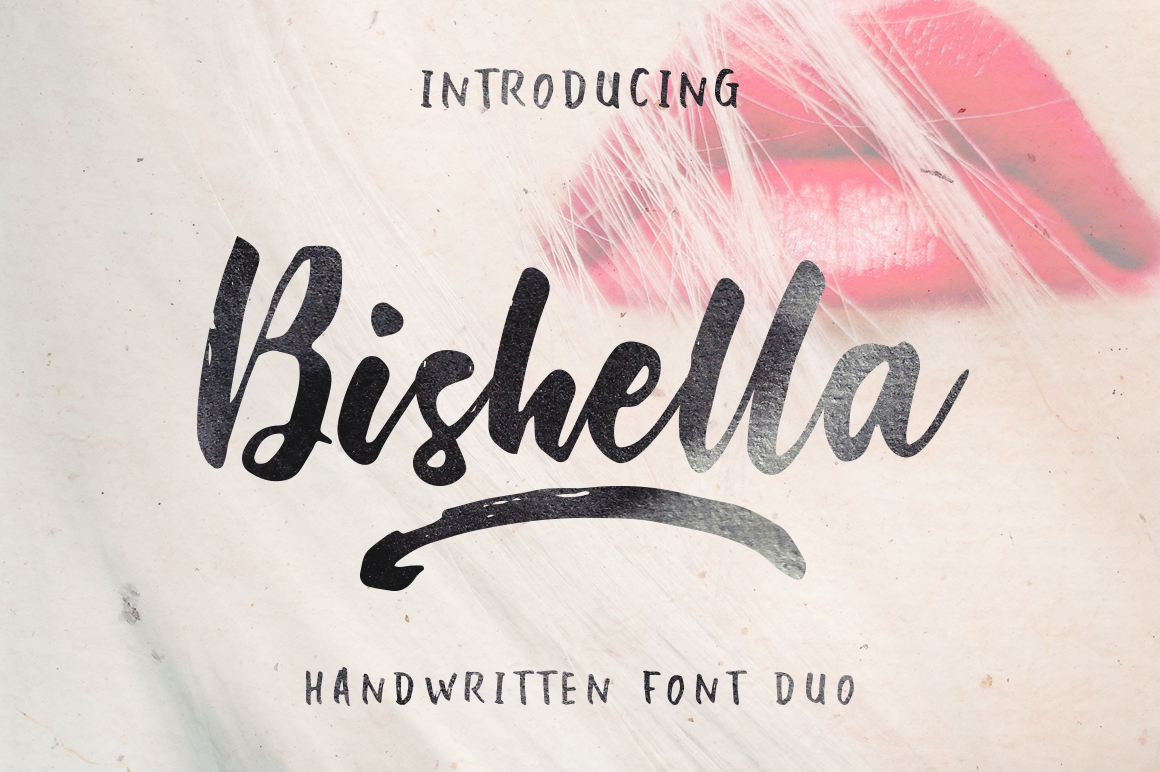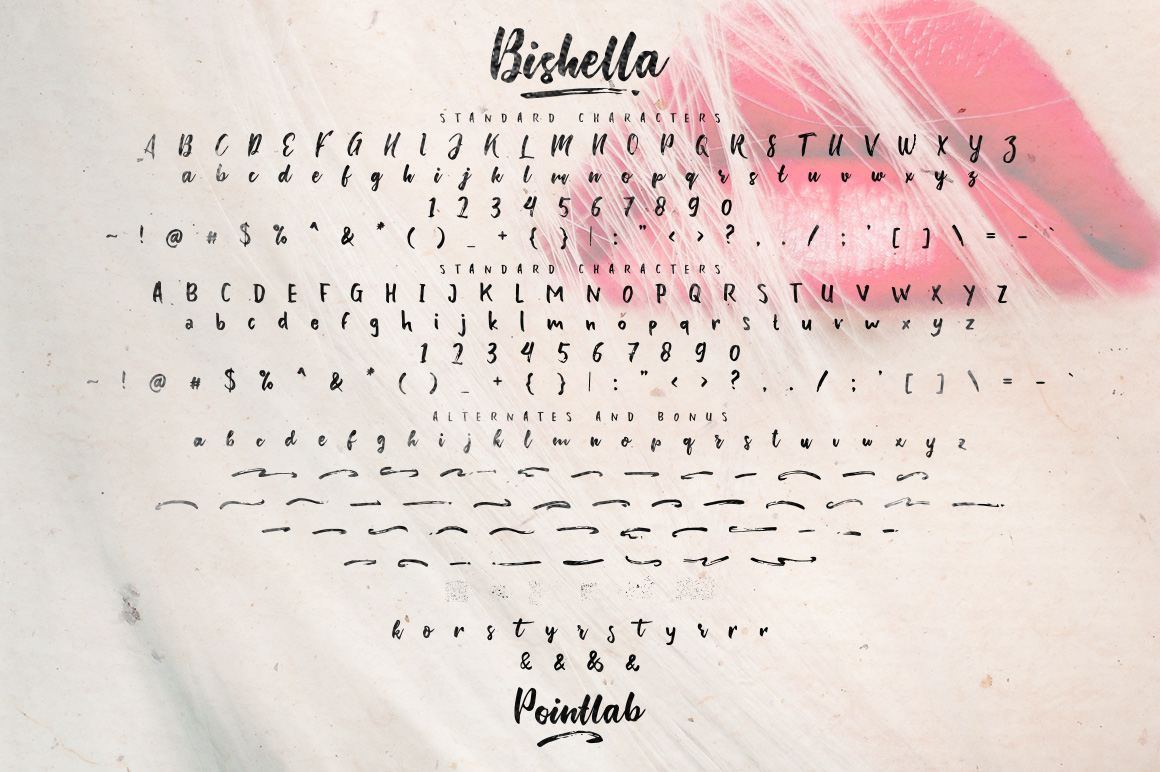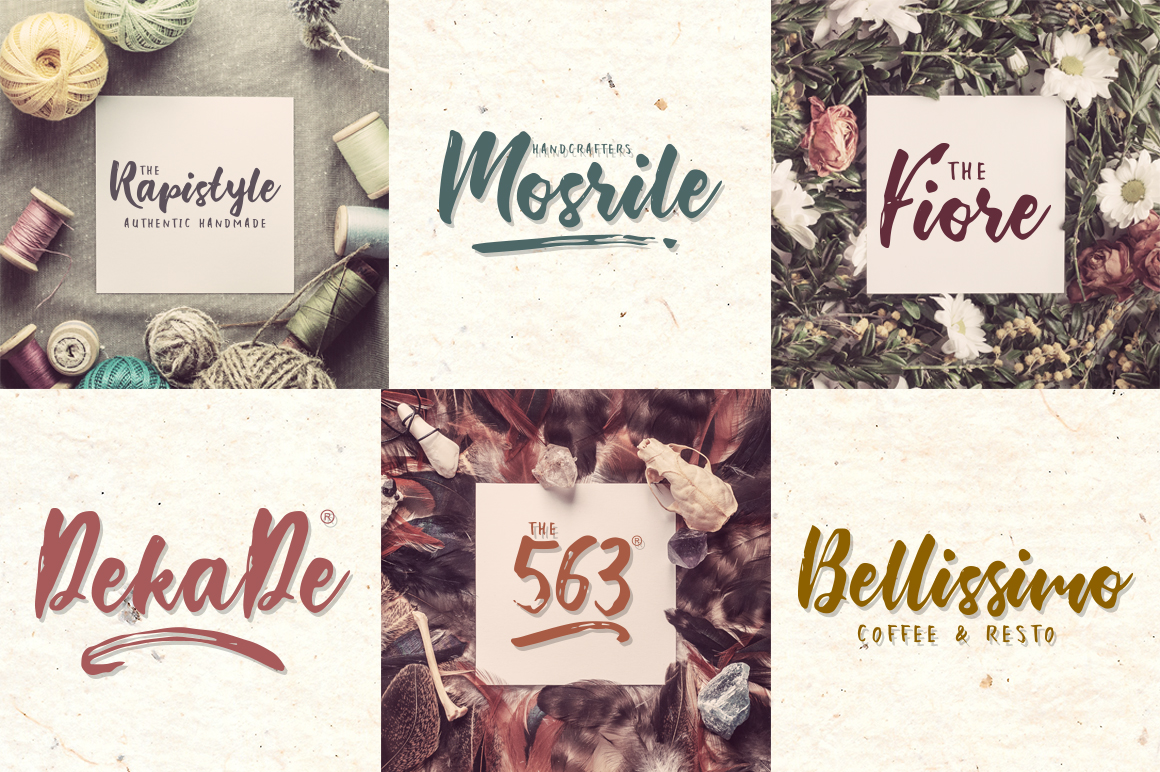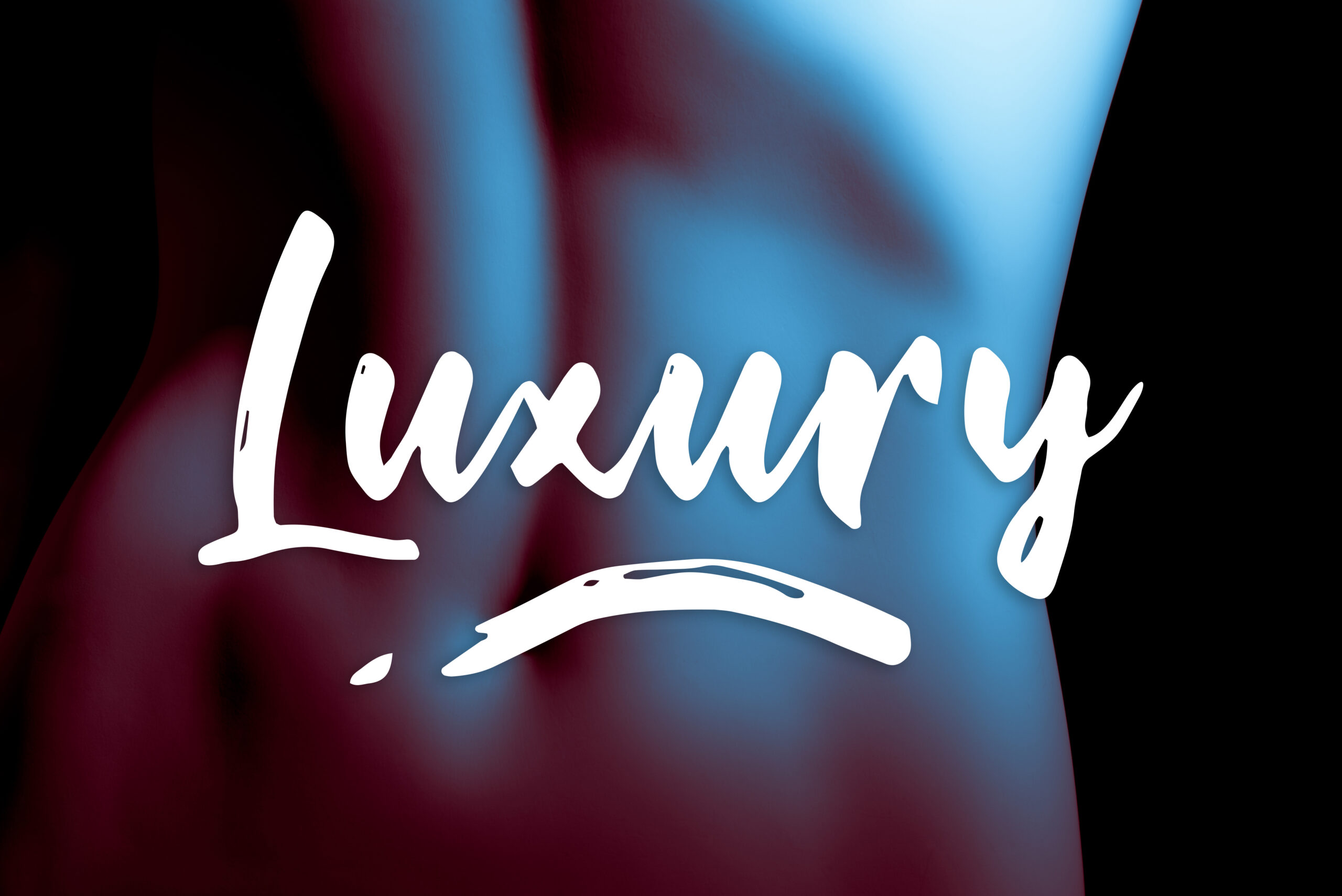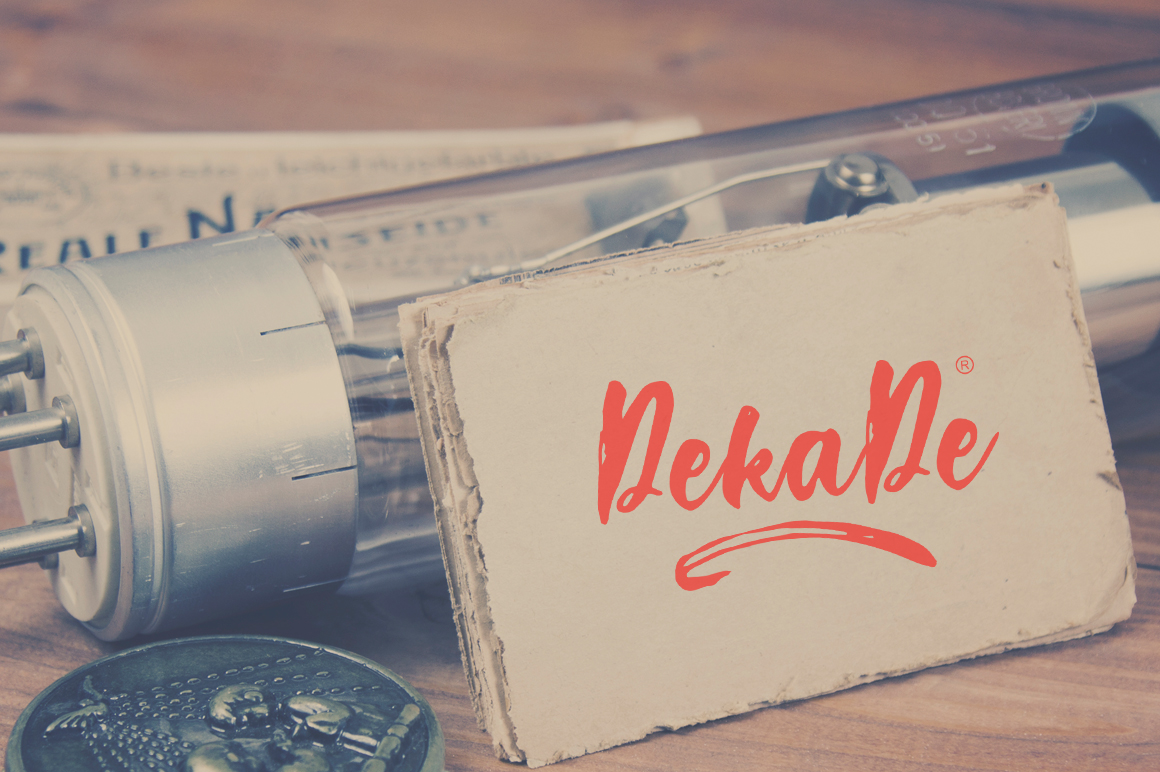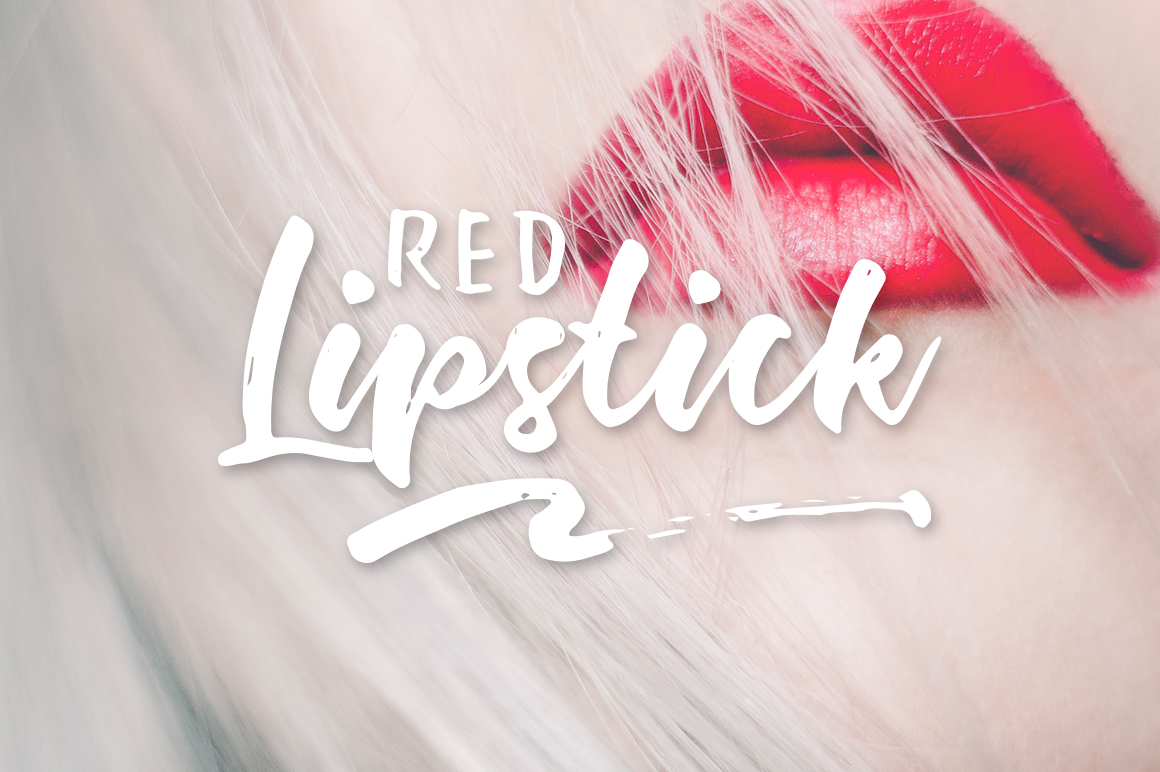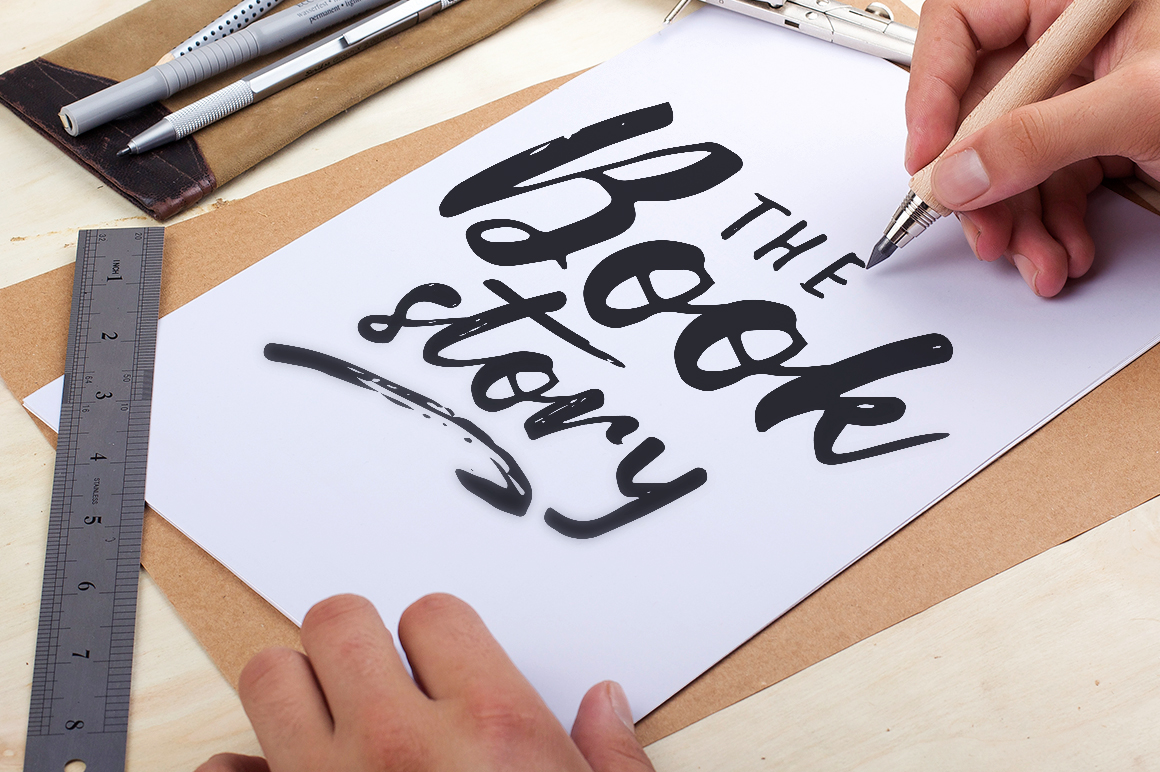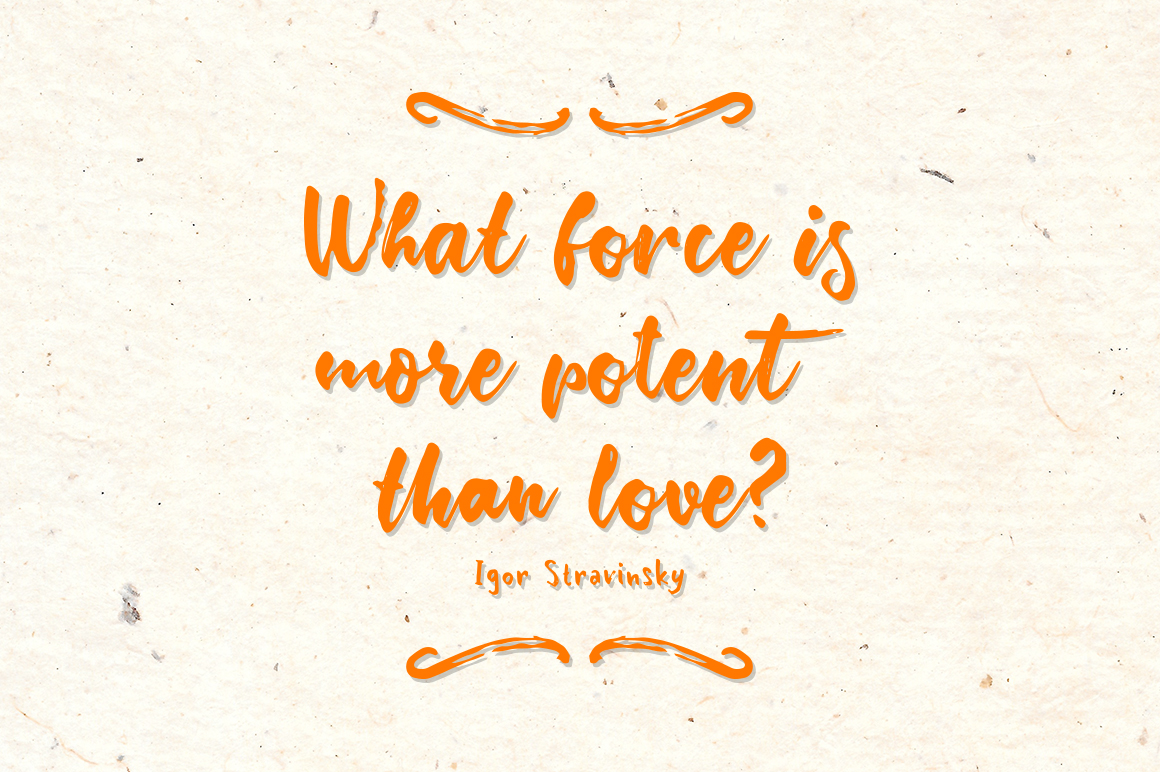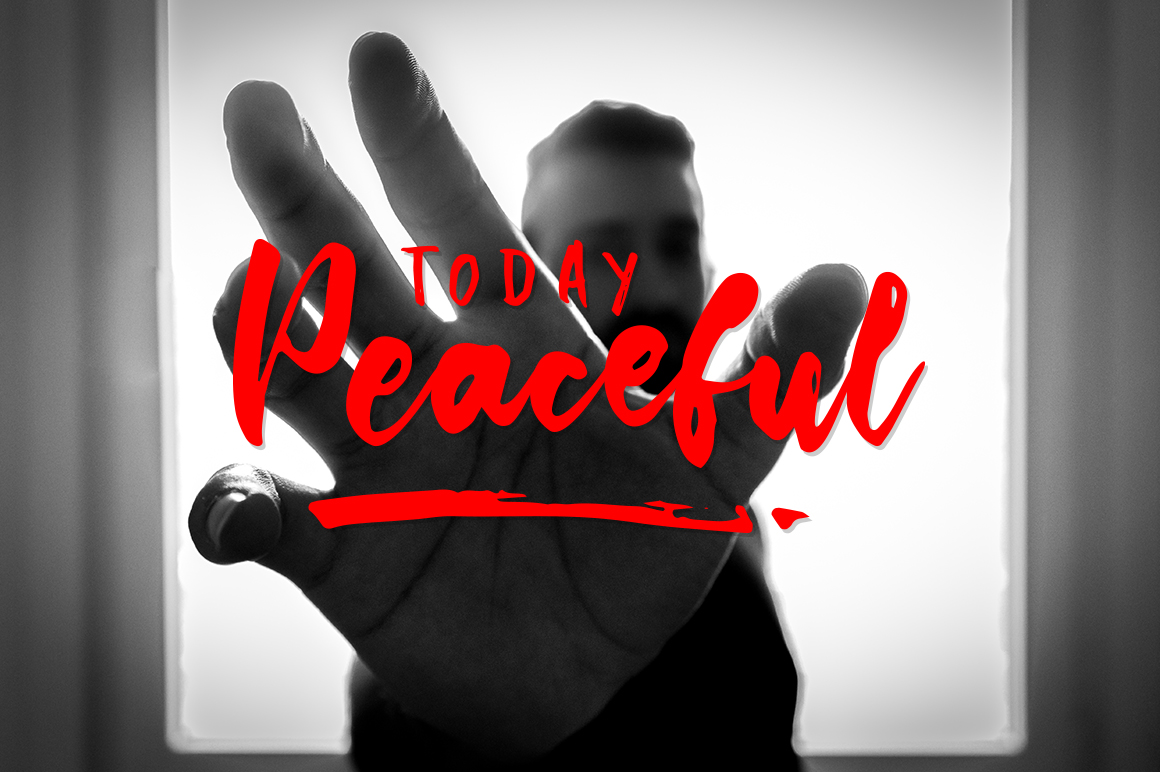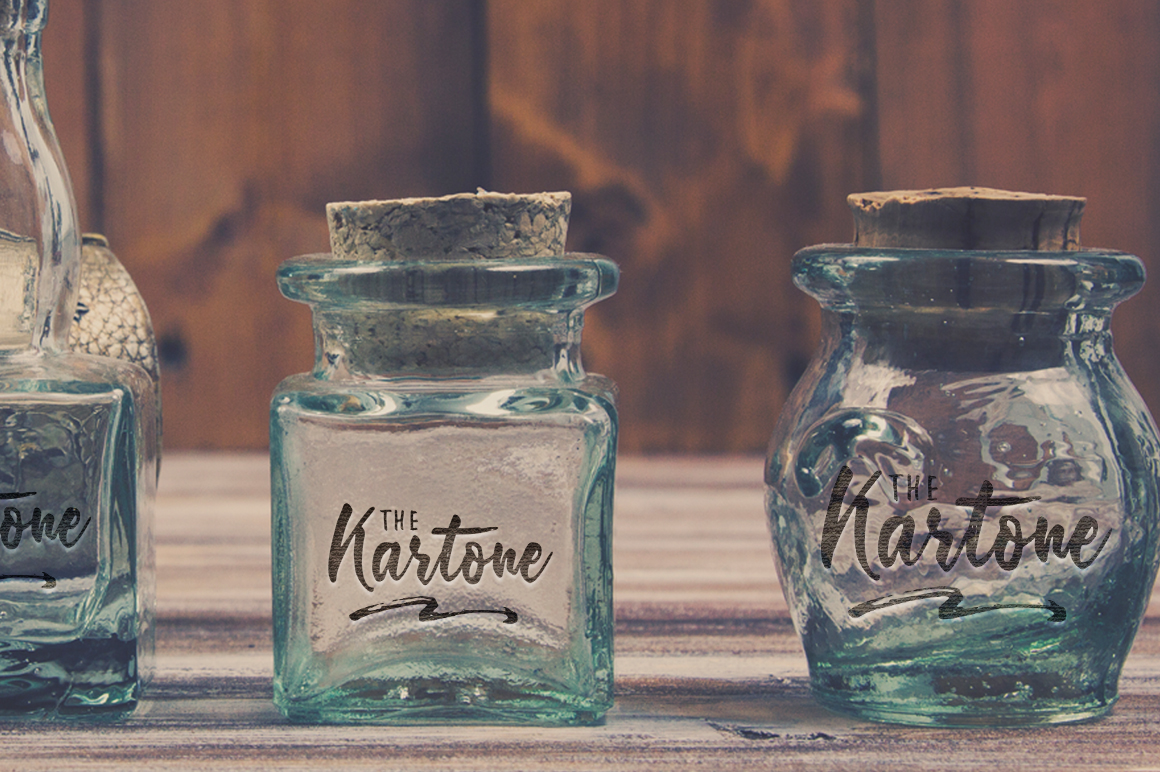
Bishella Font
About Bishella Font
Bishella is a stunning font duo, perfect for giving your designs a cohesive feel. This font comes with character alternates so you can make refined yet relaxed typographic design projects.